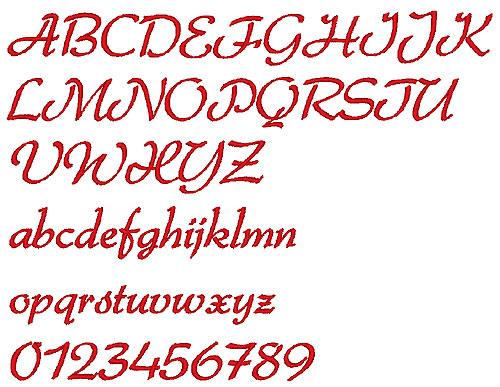
Fireside Threads is happy to present Gabrielle Cursive Embrilliance machine embroidery font which has This flowing script machine embroidery font is ideal for crafting chic designs on items like table linens or personalized gifts. The name 'Gabrielle' is showcased in vivid red. Available in BX font and Embrilliance formats. included. If you would like to view more embroidery fonts and alphabets please search our embroidery fonts page.